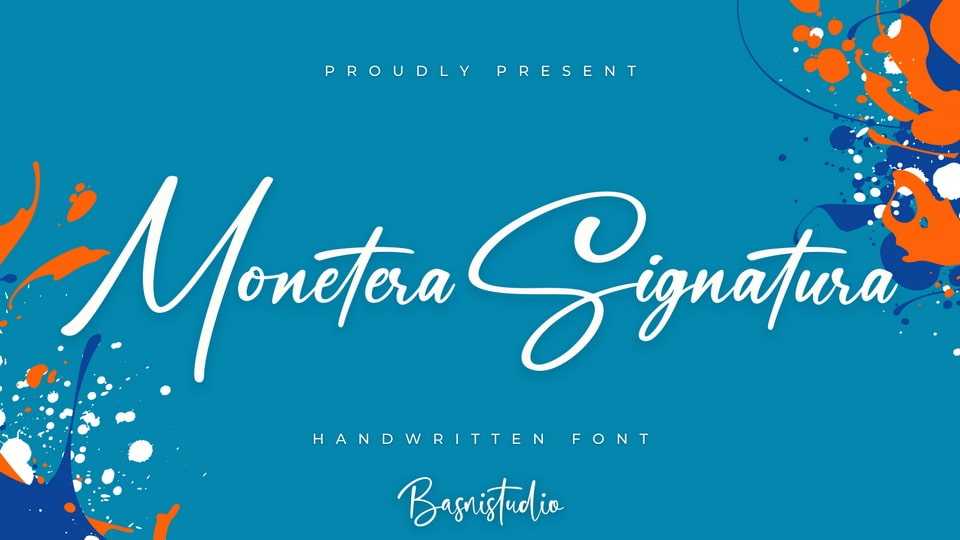
Download Monetera Signatura font, a handwritten typeface that adds a elegant, versatile touch to everything from branding and social media to invitations and packaging.